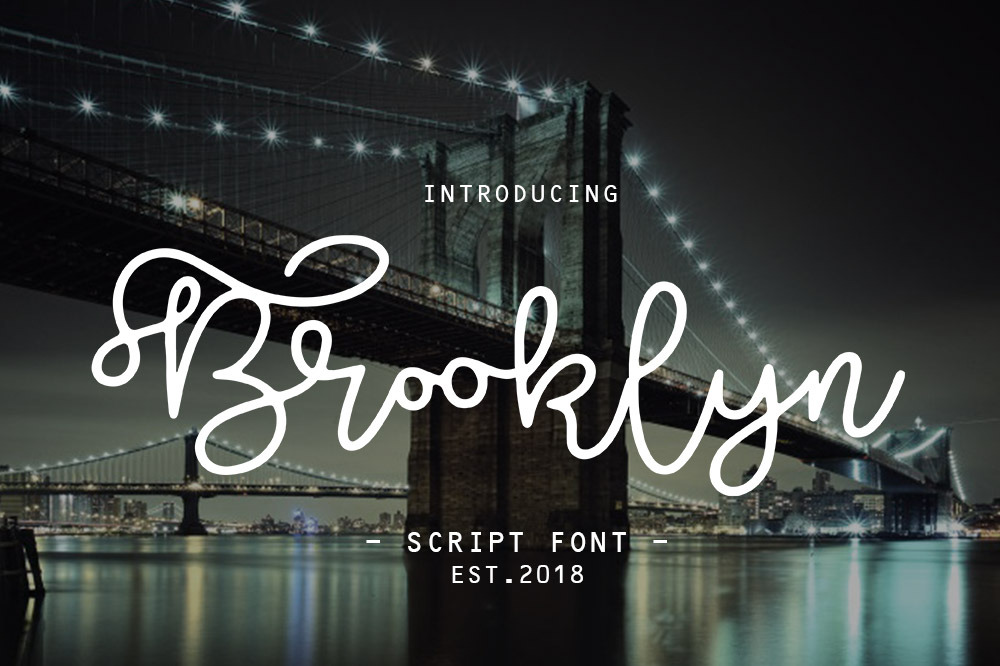
Brooklyn script font
Hello, everyone. introducing my latest product brooklyn script font. Latest script fonts are girly and easy to use into many products for your design. this font has many features in it. available in OTF and TTF formats. and this is a feature in this font:
- basic
- stylish
- ligature
- uppercase
- lowcase